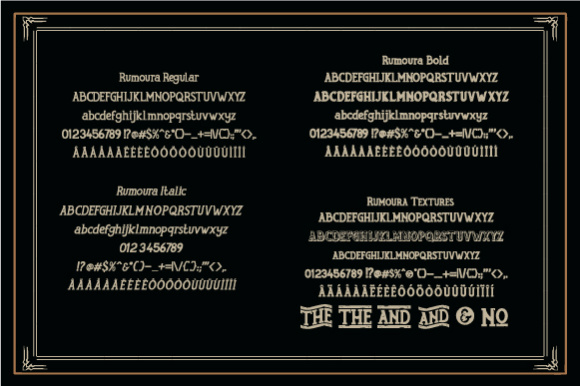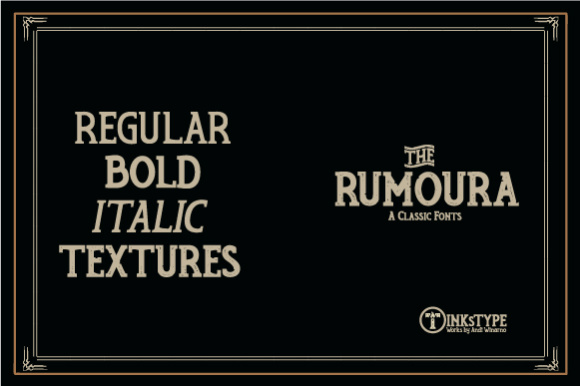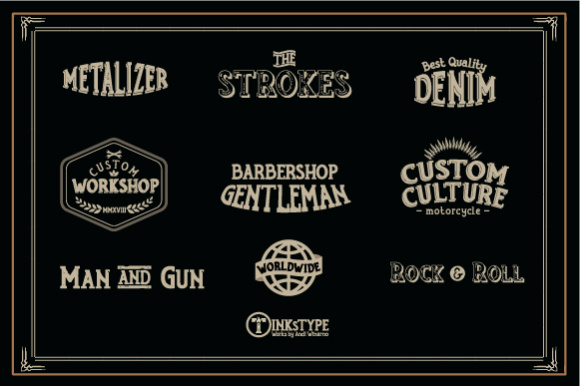
Introduction to Rumoura Font
Rumoura is a typeface with a retro look, suitable for a large range of design projects.
It’s a classical looking serif font, allowing you to create bold & vintage designs in a minute It comes with 4 unique styles.
Key Features of Rumoura Font
Why Choose Rumoura Font?
Rumoura Font offers exceptional quality and versatility, making it a valuable addition to your design toolkit. Whether you’re creating for personal projects or commercial use, Rumoura Font delivers professional results.